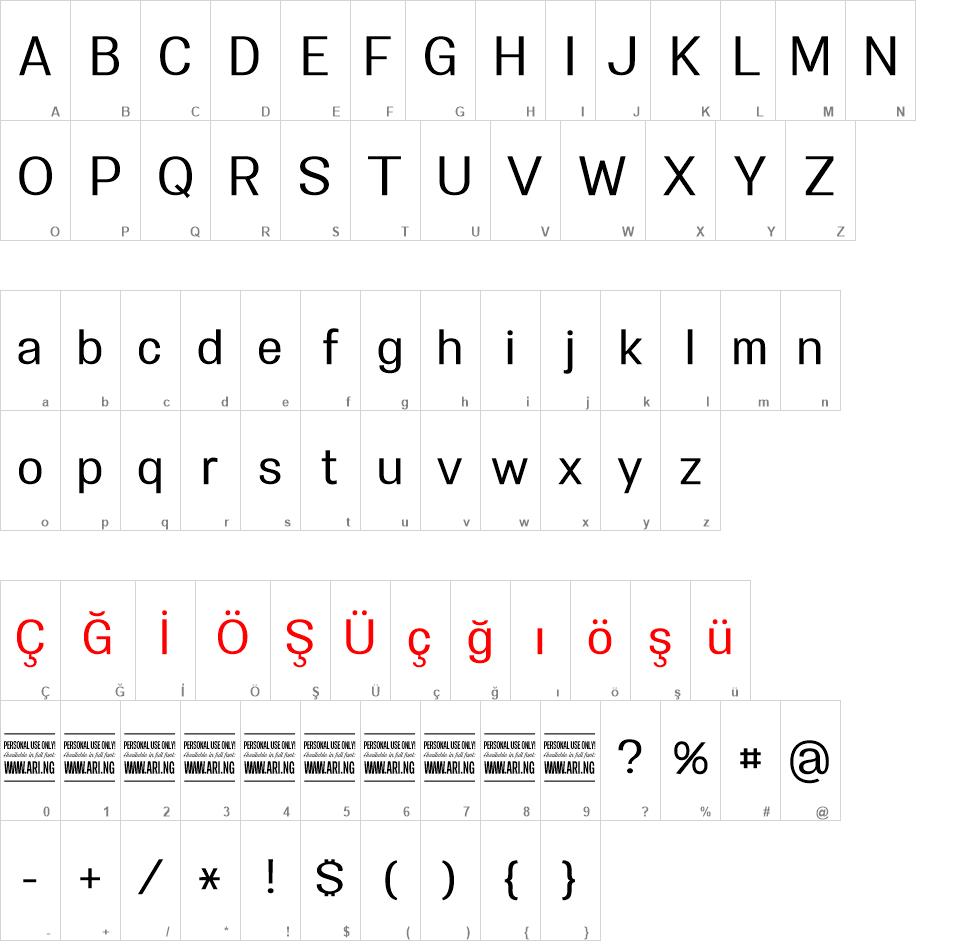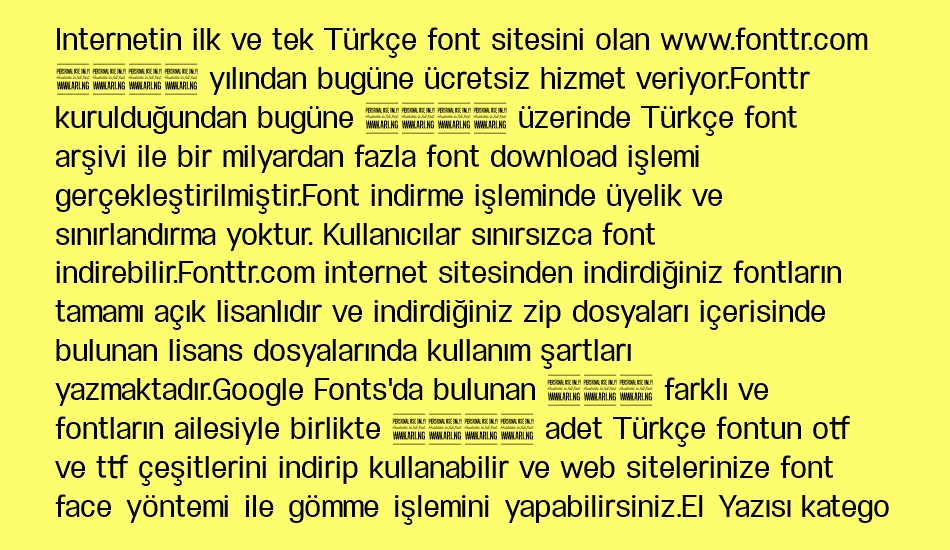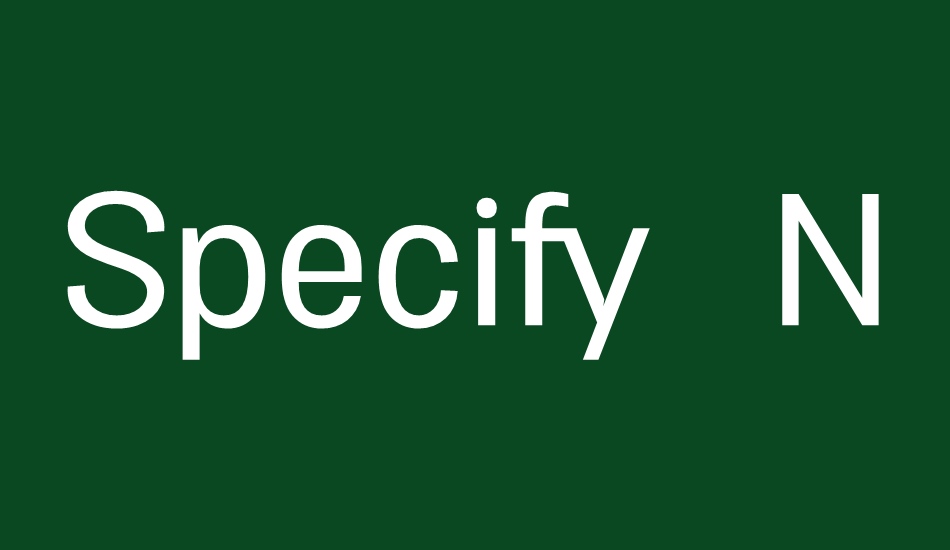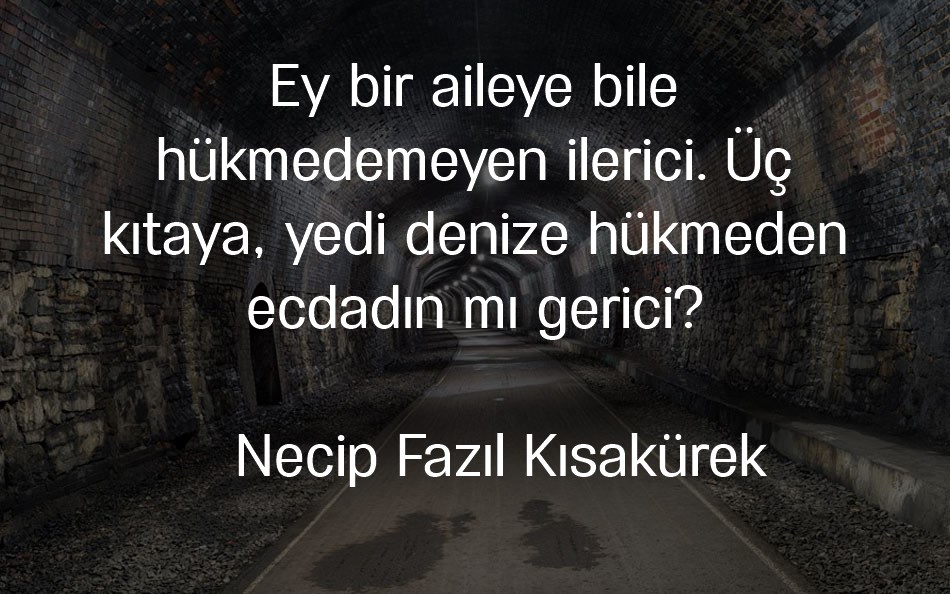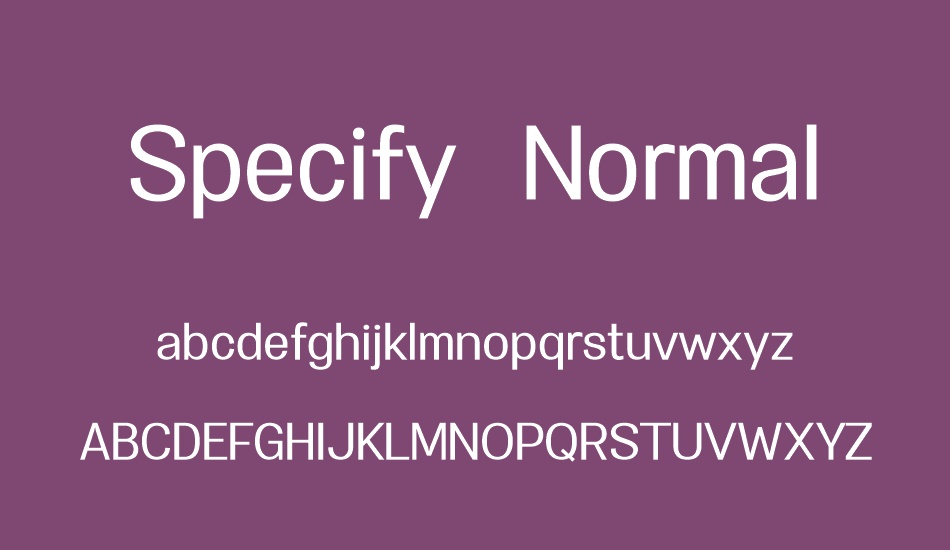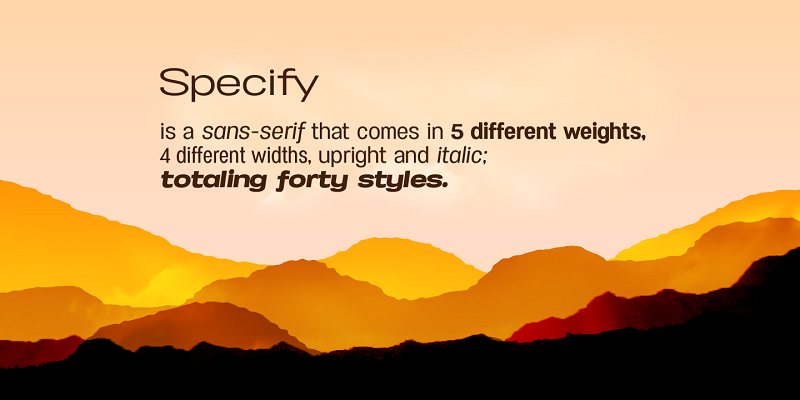
Specify font
Specify PERSONAL Normal font
Specify font
Specify is a sans-serif typeface with real variety.
Drawn with precision by M?ns Greb?ck, it brings brilliance and design to your graphic profile, while being calm and reliable.
Its 40 styles and support for all European languages guarantees that it will work in any context.
Try using the Black styles for headlines, the Thin and Light for logotypes, and the Medium and Bold weights for body text.
If you find the Normal width to be too timid, widen your words with the Expanded and Extraexpanded styles!
Or narrow your text down without leaving any information out with the condensed width.